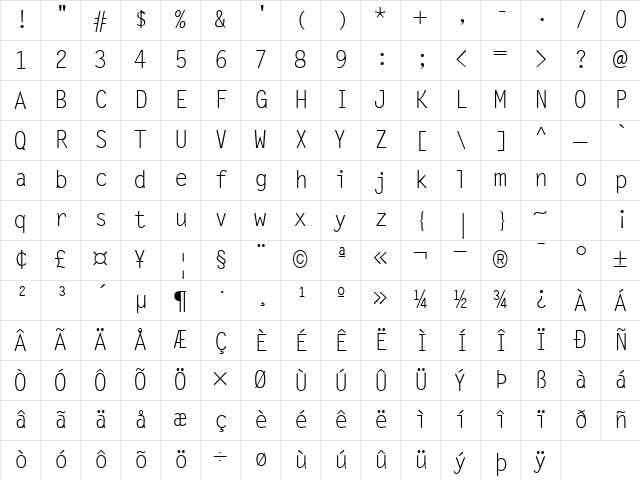
EvenLetter Regular Free Font
EvenLetter Regular
Design Context for EvenLetter
EvenLetter is a composed and adaptable typeface that performs quietly and consistently across a wide range of design contexts.
Pro Tip: Use EvenLetter in both headline and body roles to test its range before committing to a single application.